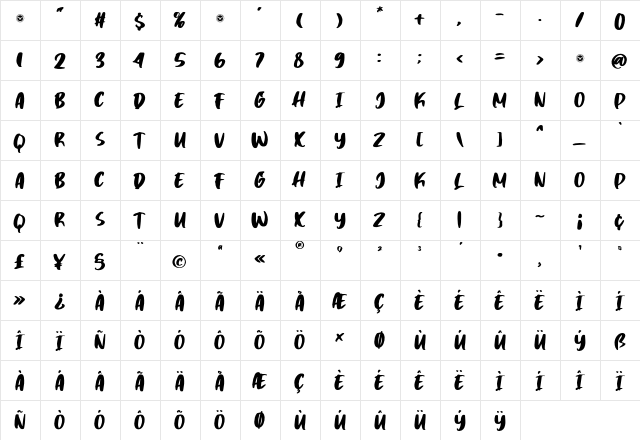
Time Breaker Regular
| Foundry | Motokiwo |
| Designer | Anton Cahyono |
Design Context for Time Breaker Typeface
Time Breaker is a composed and adaptable typeface that performs quietly and consistently across a wide range of design contexts.